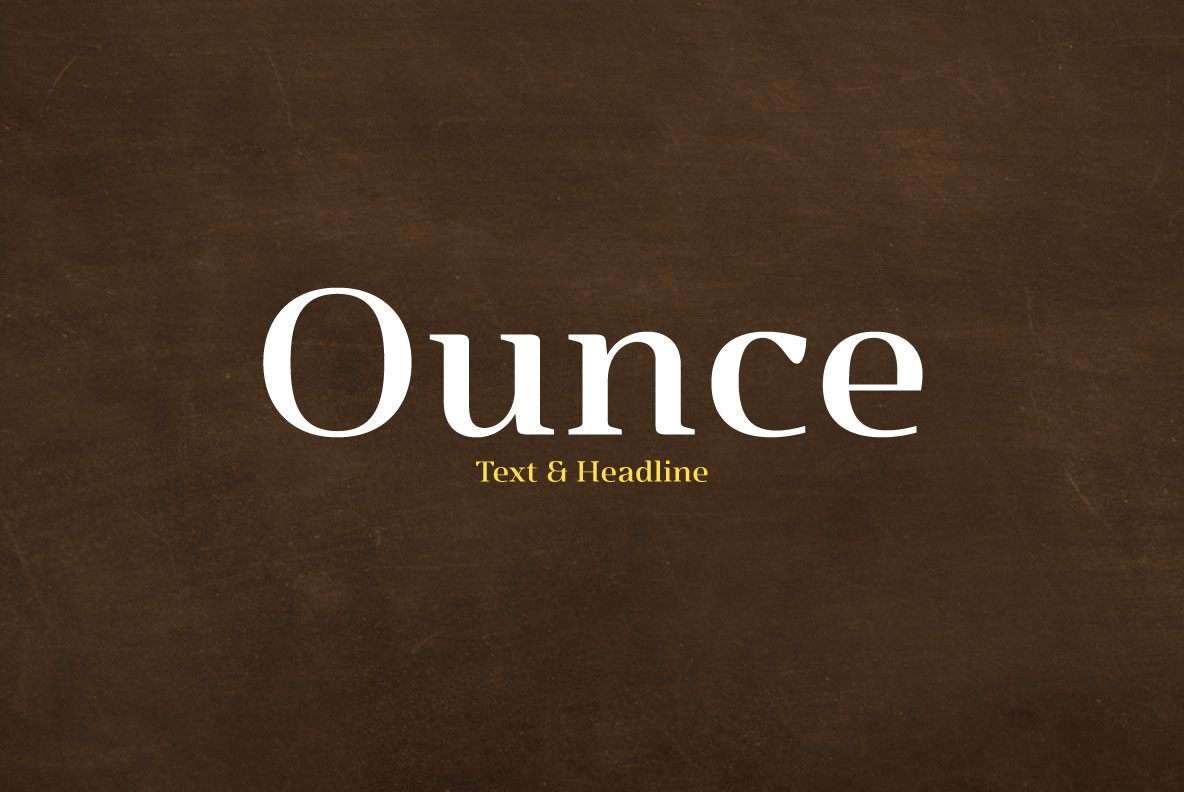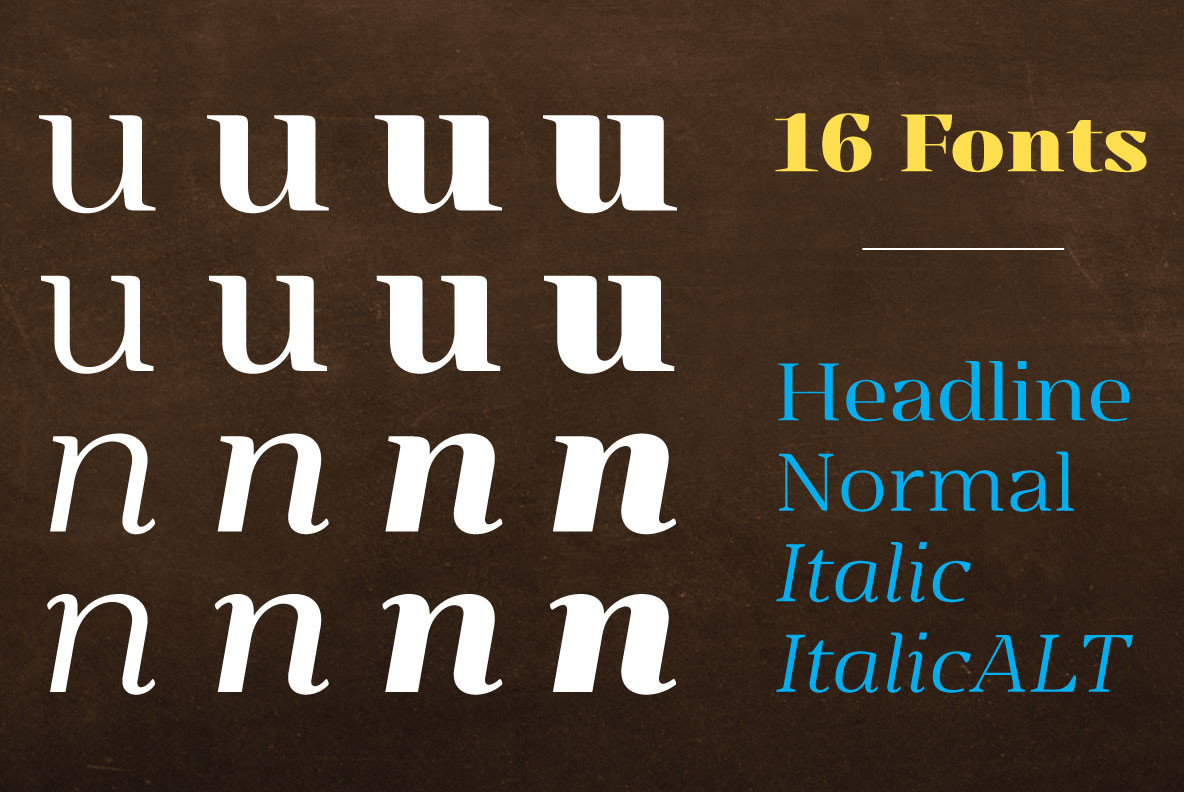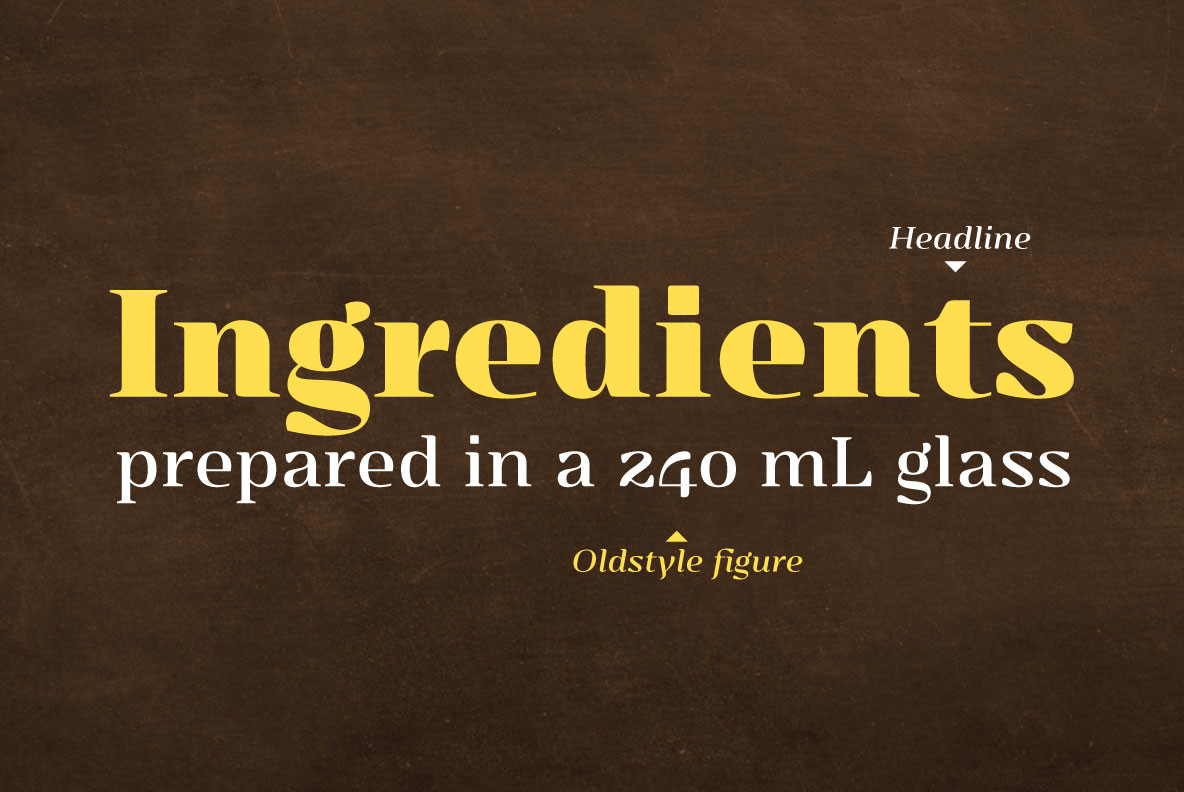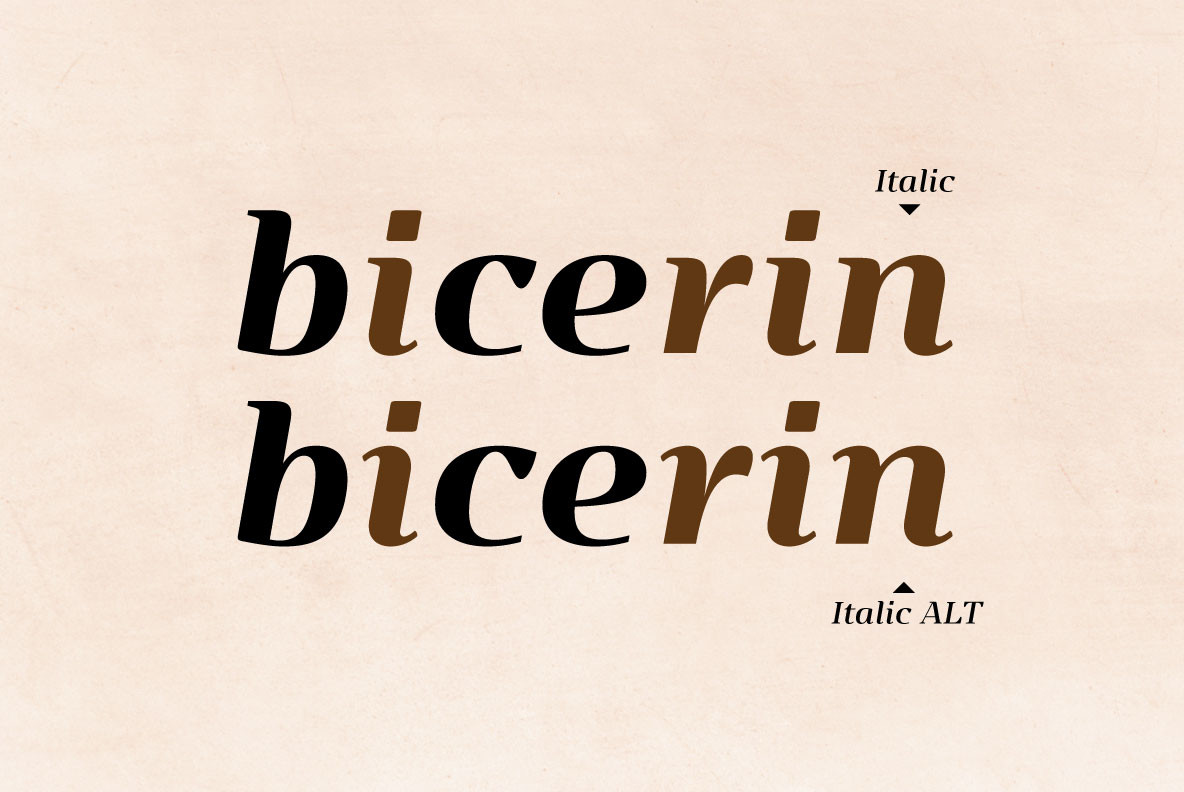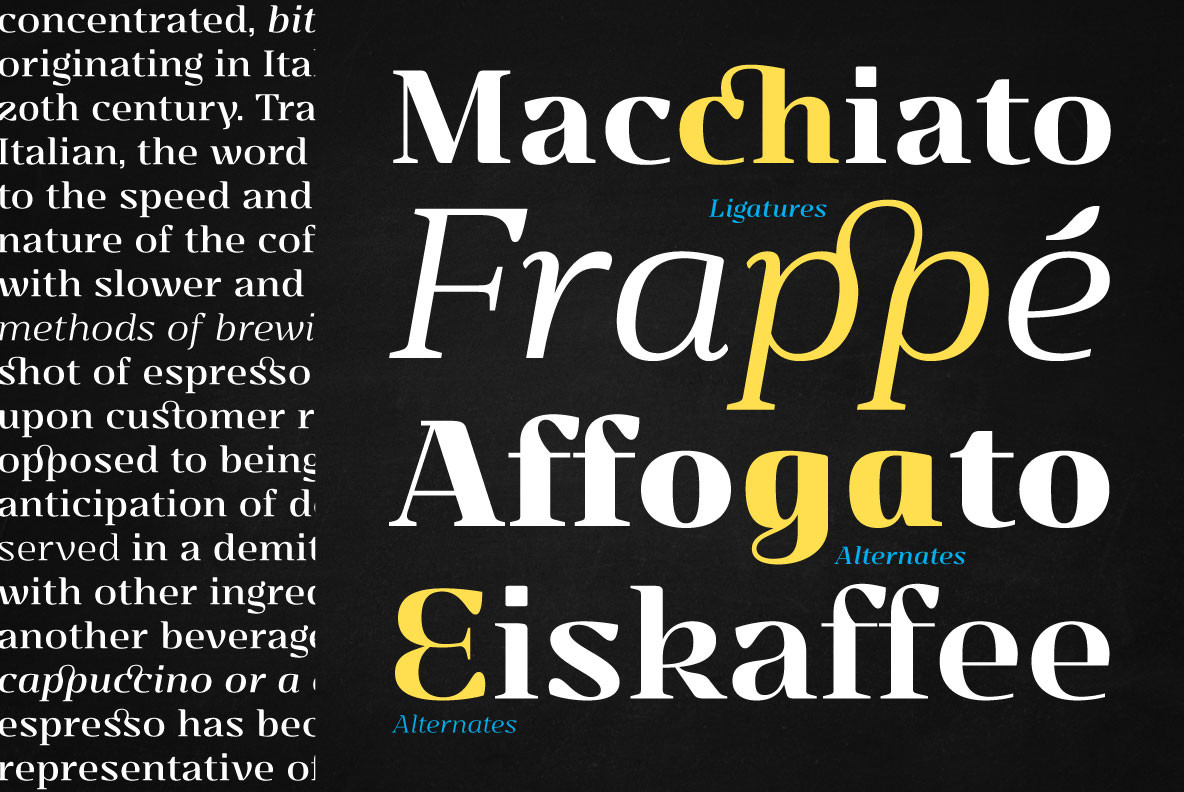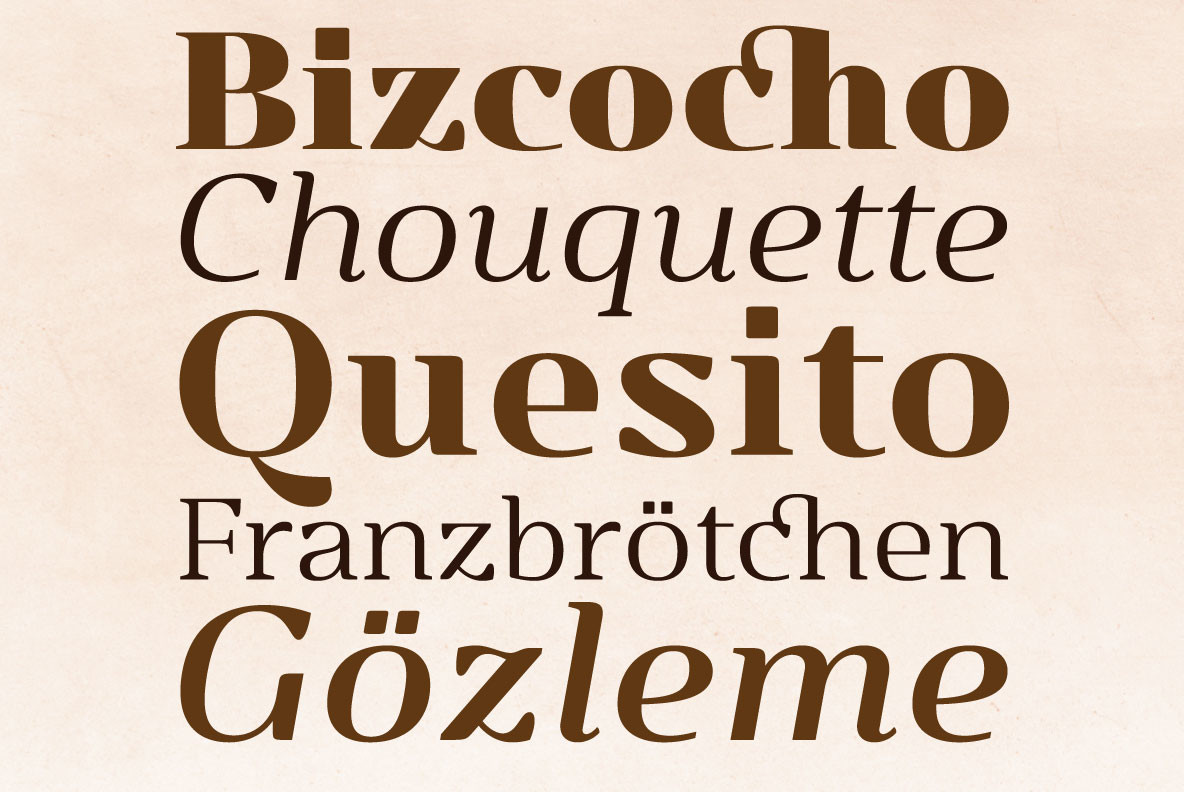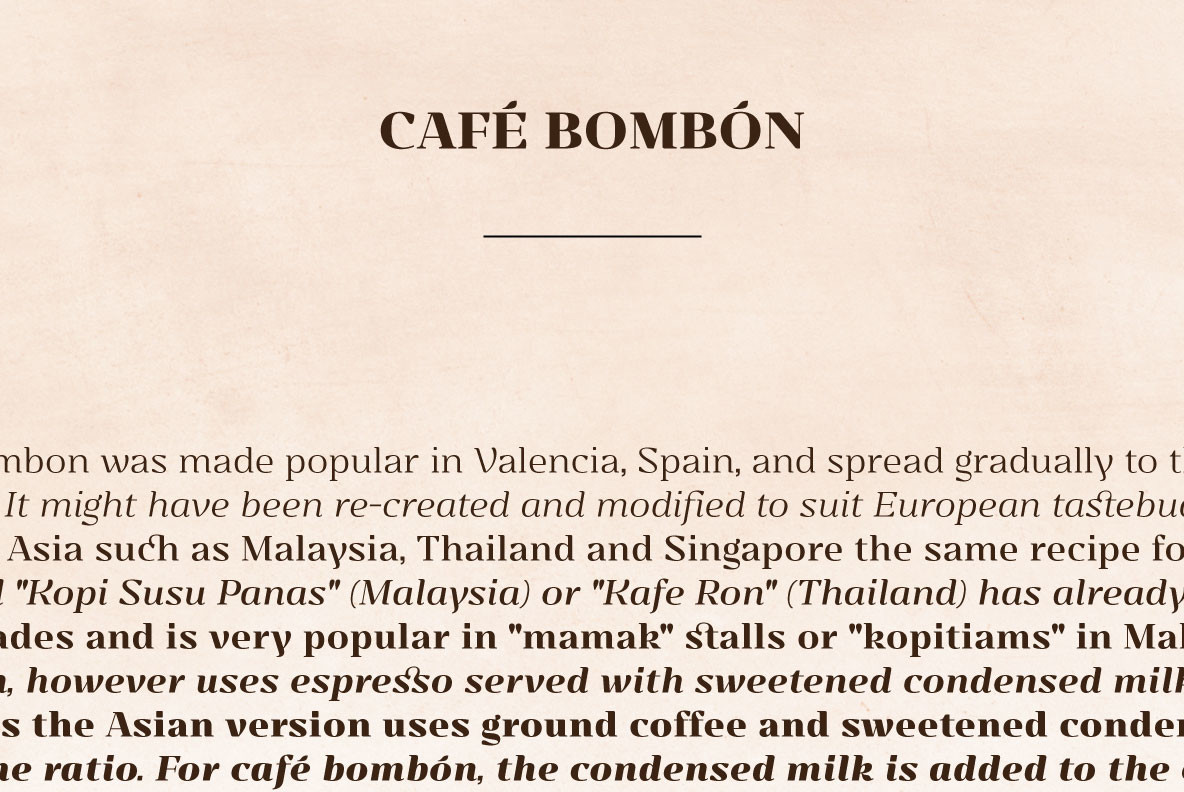
Ounce Font
Ounce is a didone typeface, a combine of high-contrast and rounded characteristic gives a unique feeling, comes with various weights from Light to Black and two options for Italic. Especially, headline for display.